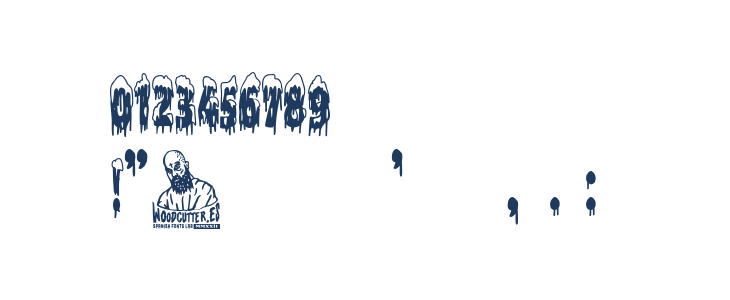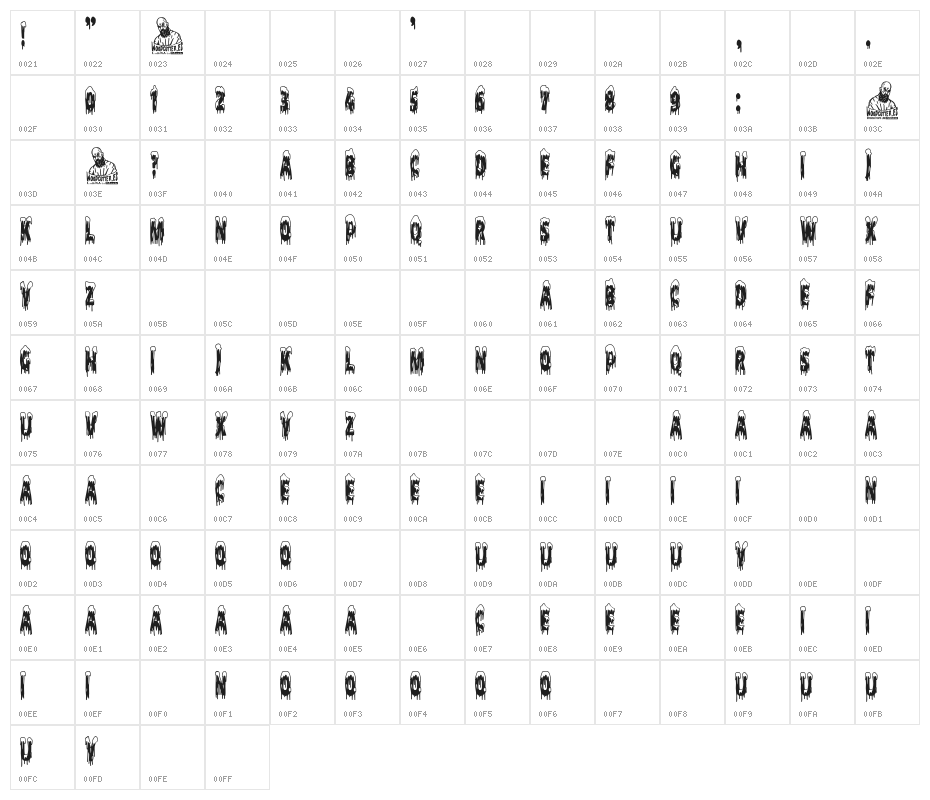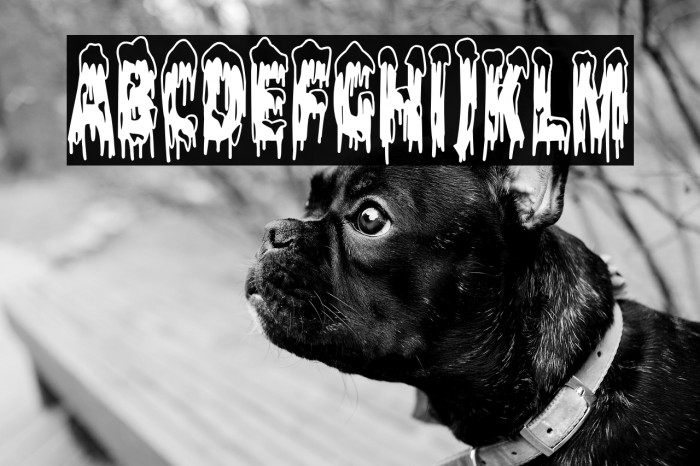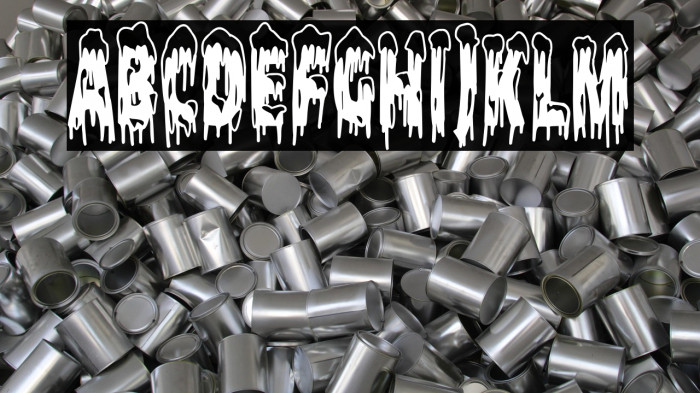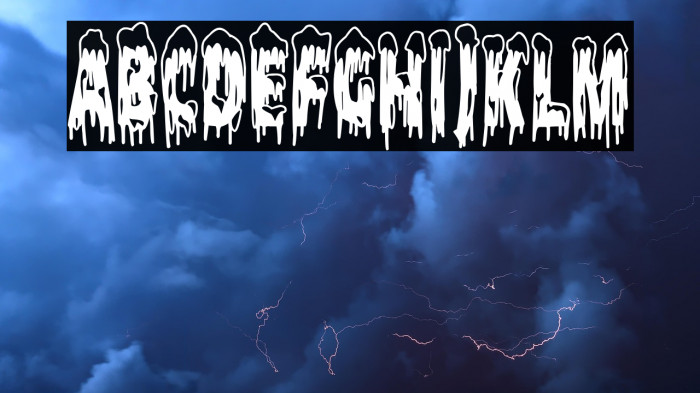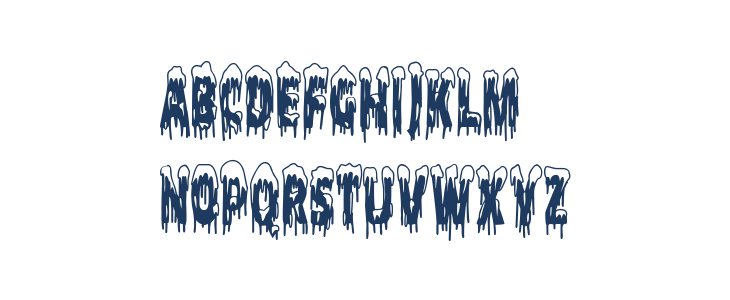
The Snow Nightmare Font
The Snow Nightmare Description
This font features a chilling, drippy design that evokes the imagery of melting snow or ice. Each character appears to be dripping, creating a sense of movement and fluidity. The uppercase and lowercase letters maintain a consistent style, with the drips adding a unique texture to the overall appearance. The numbers and special characters follow the same theme, ensuring a cohesive look across all elements. The font's playful yet eerie aesthetic makes it suitable for themes related to winter, horror, or fantasy.
| Proposed Projects | Ideal for Halloween posters, winter-themed events, horror movie titles, or fantasy book covers. |